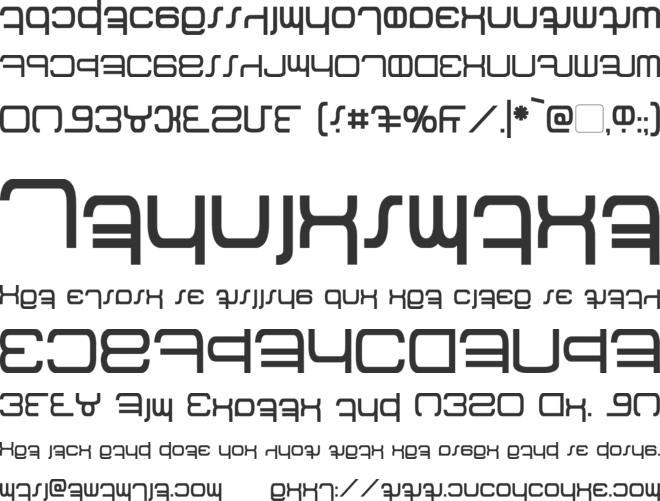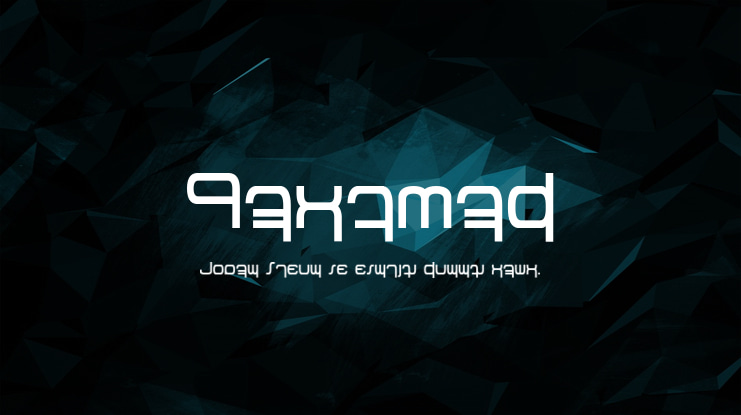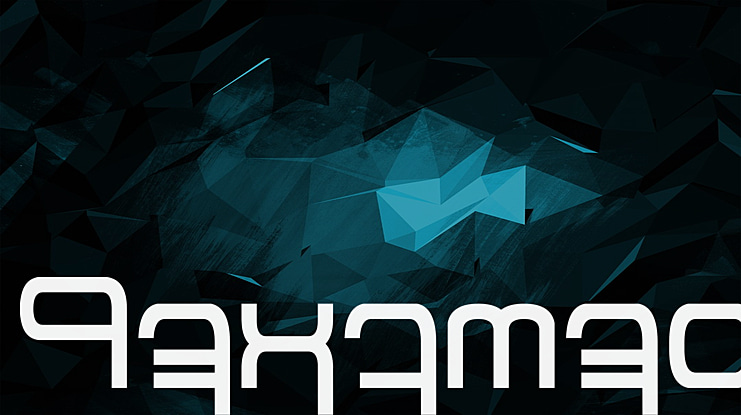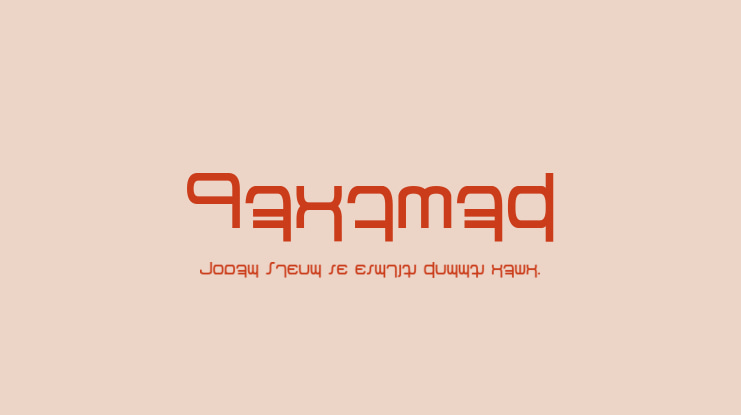
Betazed Font Family
Neale Davidson
Betazed is a fan-commissioned font to give a written-for to the Betazed language as used in Star Trek: The Next Generation. Includes a full alphabet and 10-digit numerical system based on the "Tech Manual" style. Includes bold, italic, and bold-italic versions.